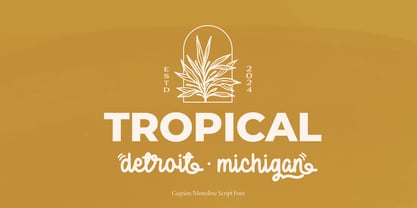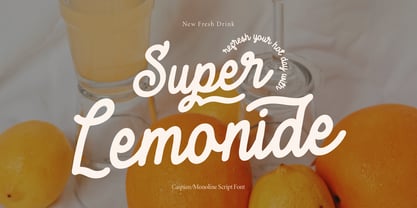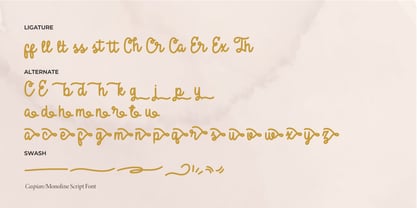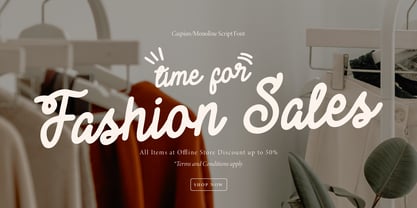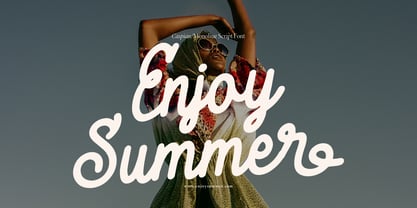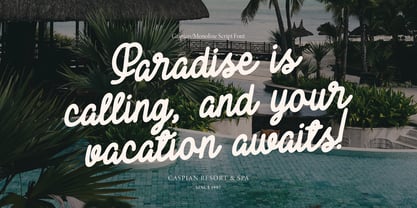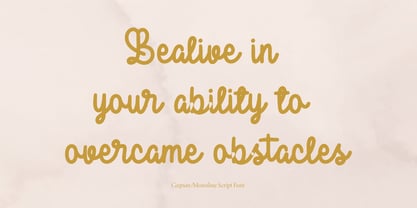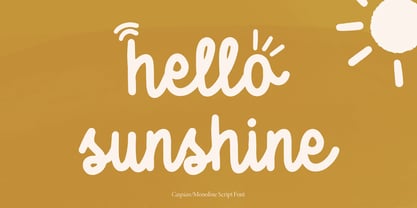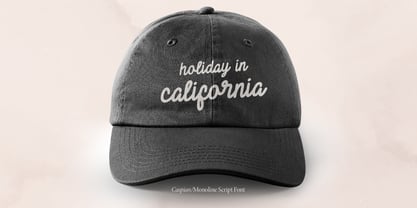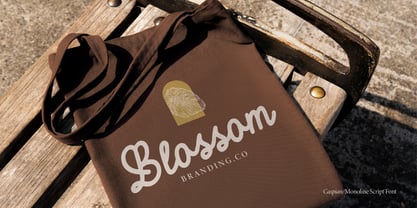
Caspian
The Caspian Font Family was designed by Dede Nugraha and published by Denustudio. Caspian contains 2 styles and family package options.
Caspian | Monoline Script, from Denustudios, suitable for any projects such as: logos, branding projects, homeware designs, product packaging, mugs, quotes, posters, shopping bags, t-shirts, book covers, name card, invitation cards, greeting cards, label, photography, watermark, special events, and all your other lovely projects that need a Monoline Script taste.
• Regular and Italic
• Alternate and Ligature